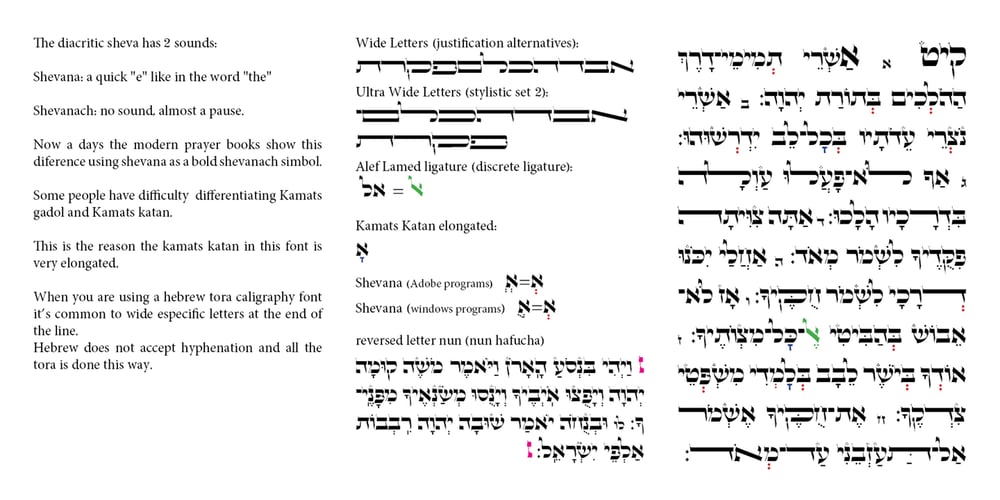
Tora Caligraphy
Tora Caligraphy font
Tora Caligraphy Font Family was designed by Sami Artur Mandelbaum and published by Samtype. Tora Caligraphy contains 1 styles and family package options. This font is a new fresh type of caligraphy hebrew font. The opentype features are much better then those are in the font market.